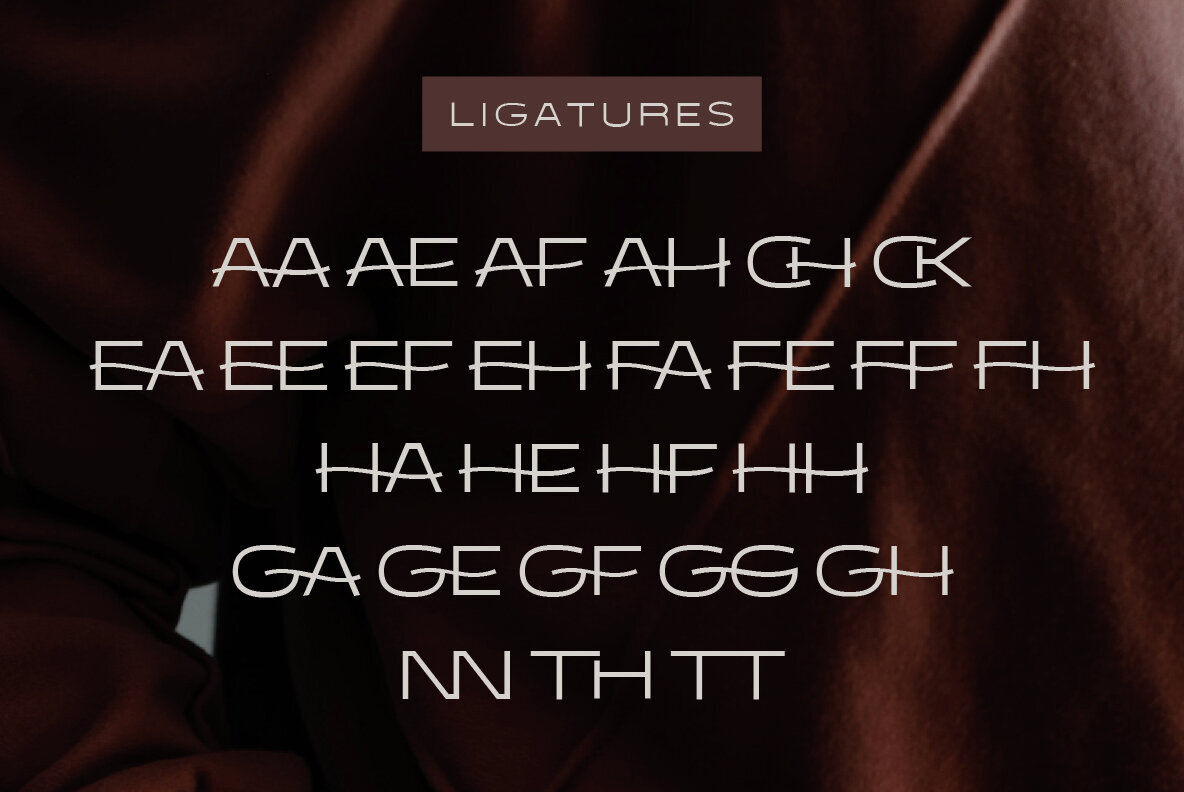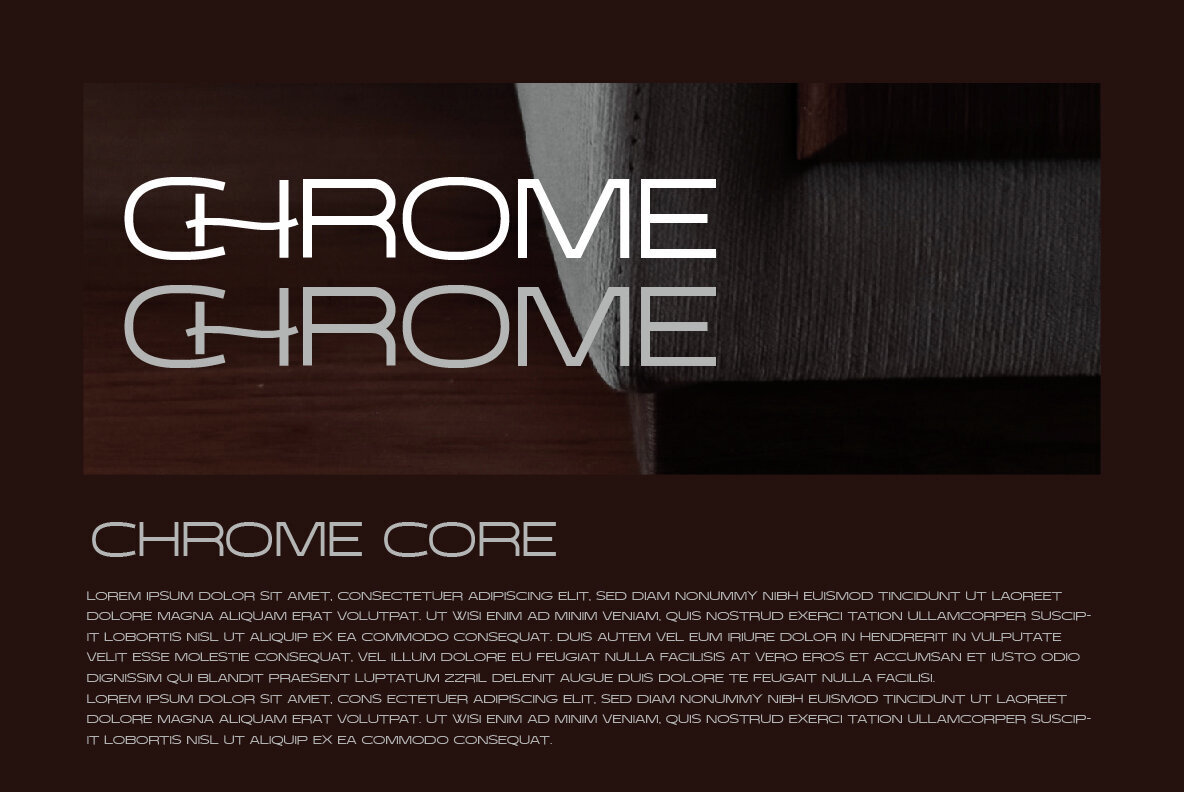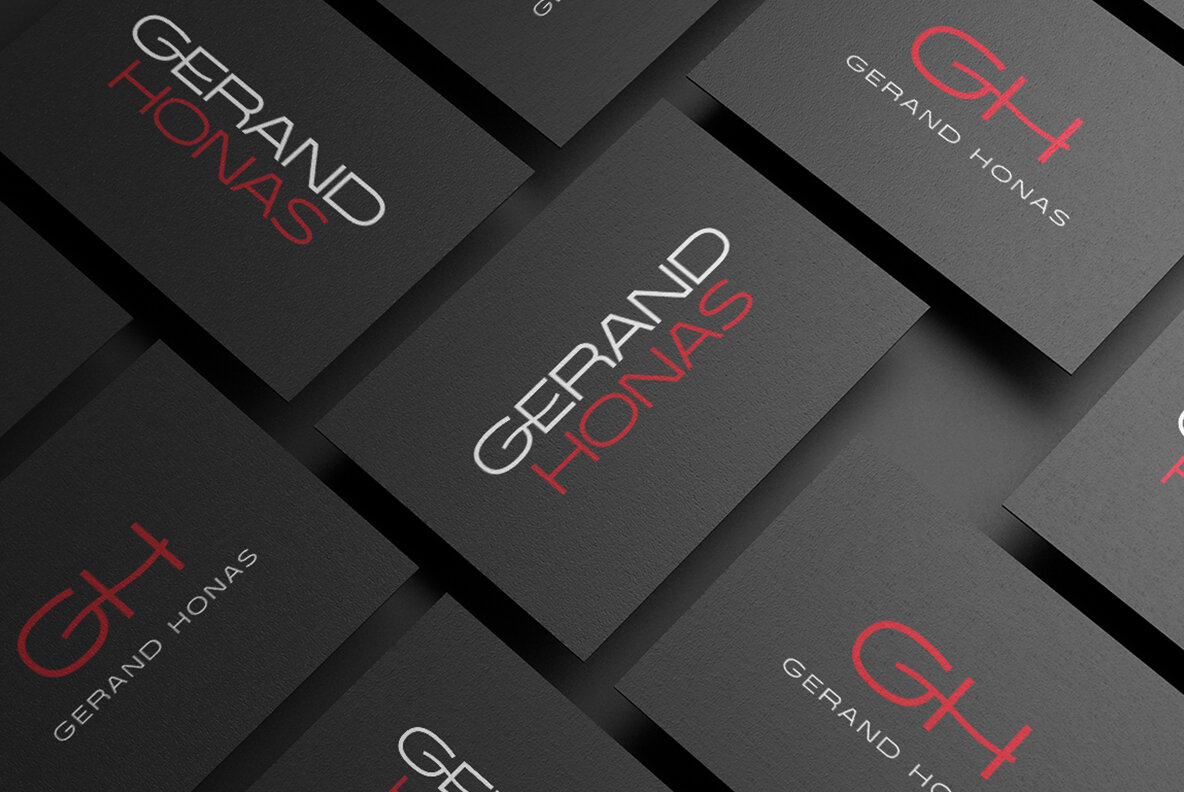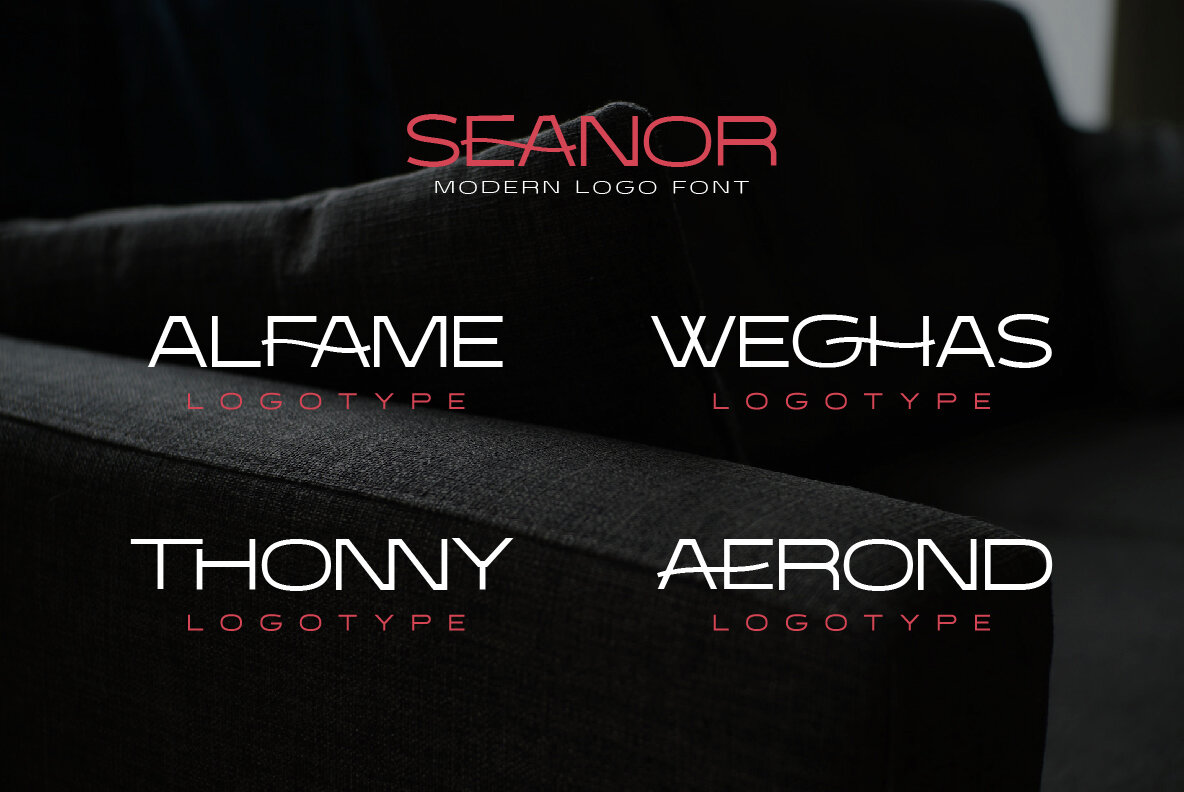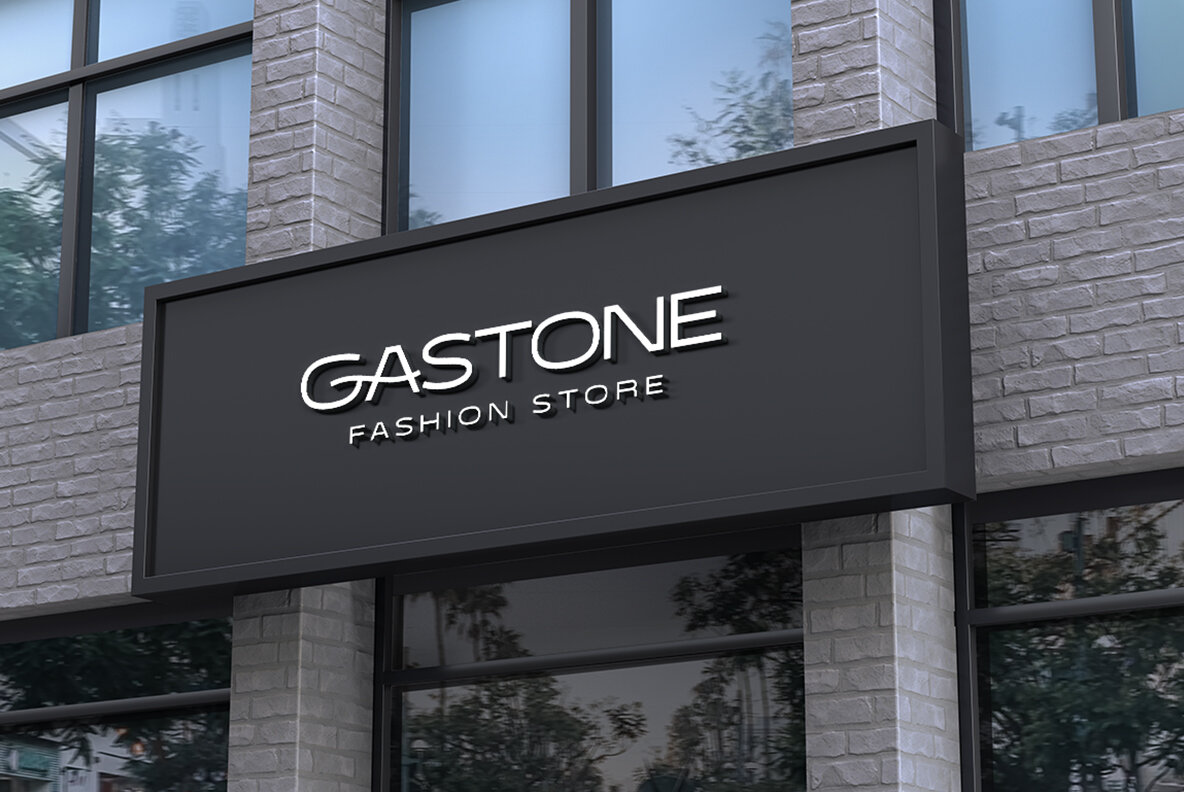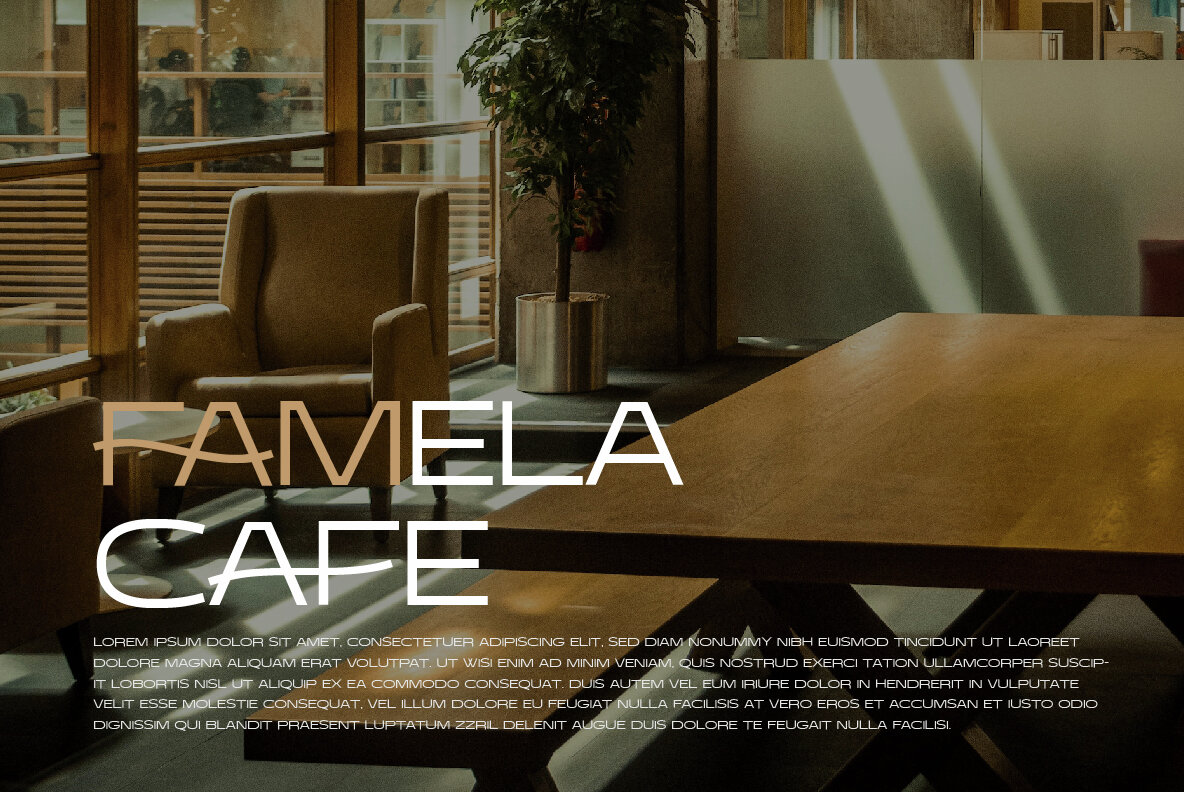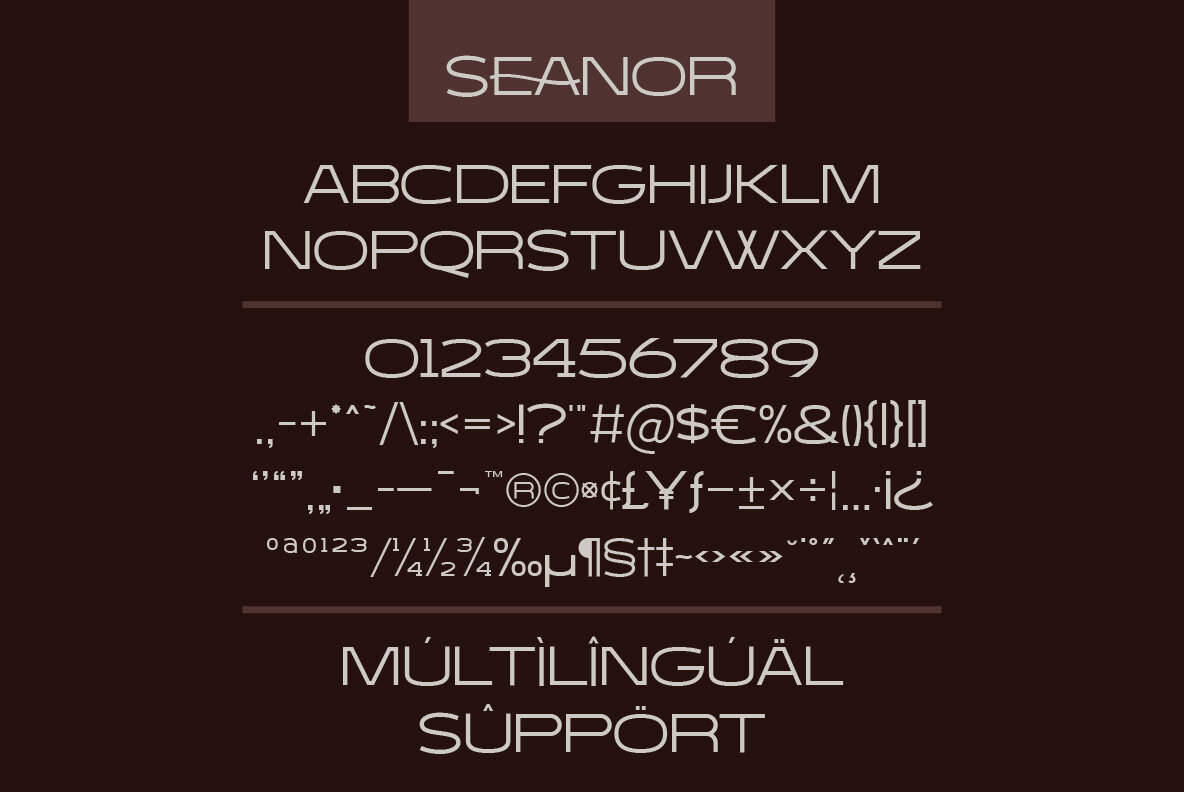
Seanor Font
Introducing 'Seanor', a versatile and modern logo font thoughtfully crafted by the renowned Typebae. Distinguished by its 26 elegant ligatures, it effortlessly weaves together a sophisticated blend of contemporary aesthetics and functionality. This font has been created specifically keeping in mind the needs and preferences of graphic designers and marketing firms, who demand nothing short of clarity, style, and versatility. What sets 'Seanor' apart from its contemporaries is its unique ligatures that provide stylish combinations of letters. This inherent charm opens up infinite possibilities to experiment, design, and deliver projects that not only satisfy your creative spirit but also captivate your audience's attention. No matter the branding or design project, 'Seanon Seanor' stands ready to infuse it with an extraordinary modernist flair that truly connects and communicates.Discover 'Seonor Seanor', Your New Go-To Logo Font for Creative Expression